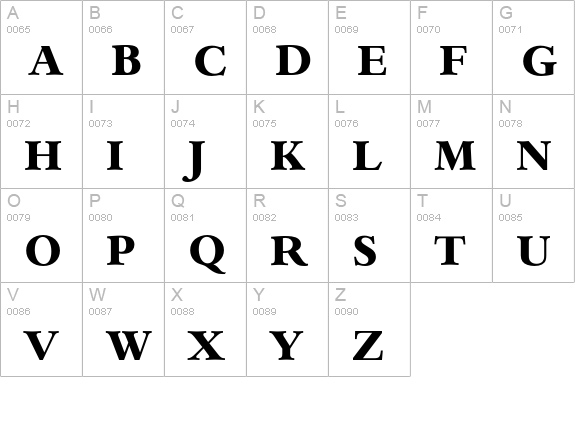
Bernstein-Bold is a strong, high-contrast variant in the Bernstein typeface family \xE2\x80\x94 well suited to headlines, attention-grabbing titles, and strong calls-to-action.
Bernstein-Bold font is a visually striking typeface that exudes elegance and sophistication. With its bold and commanding presence, this font is perfect for making a bold statement in any design project. The clean lines and distinct letterforms of Bernstein-Bold font make it ideal for headlines, logos, and other prominent text elements. What sets Bernstein-Bold font apart is not only its impeccable design but also the fact that it is available for free download at FontsMarket.com. This means that you can easily access this premium font without any cost, making it a valuable addition to your font library. Whether you're working on a branding project, a poster design, or any other creative endeavor, Bernstein-Bold font is sure to elevate your work with its timeless appeal and versatility.